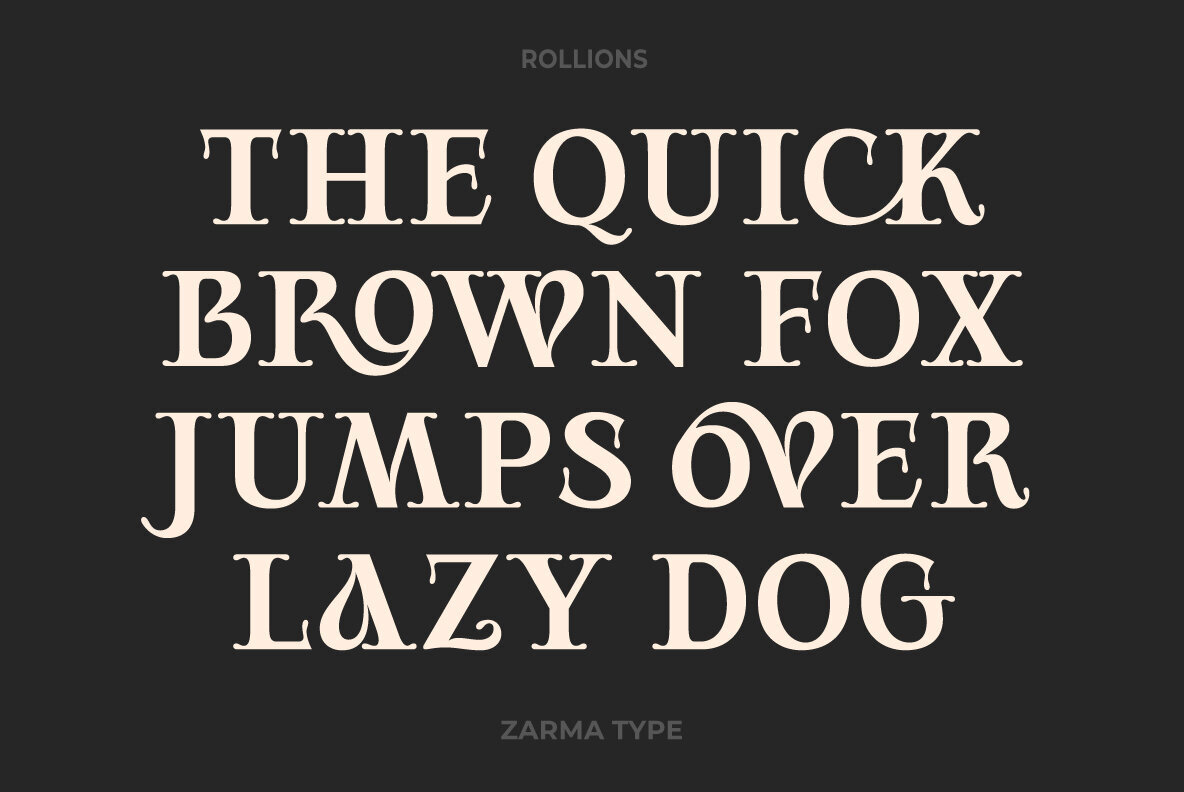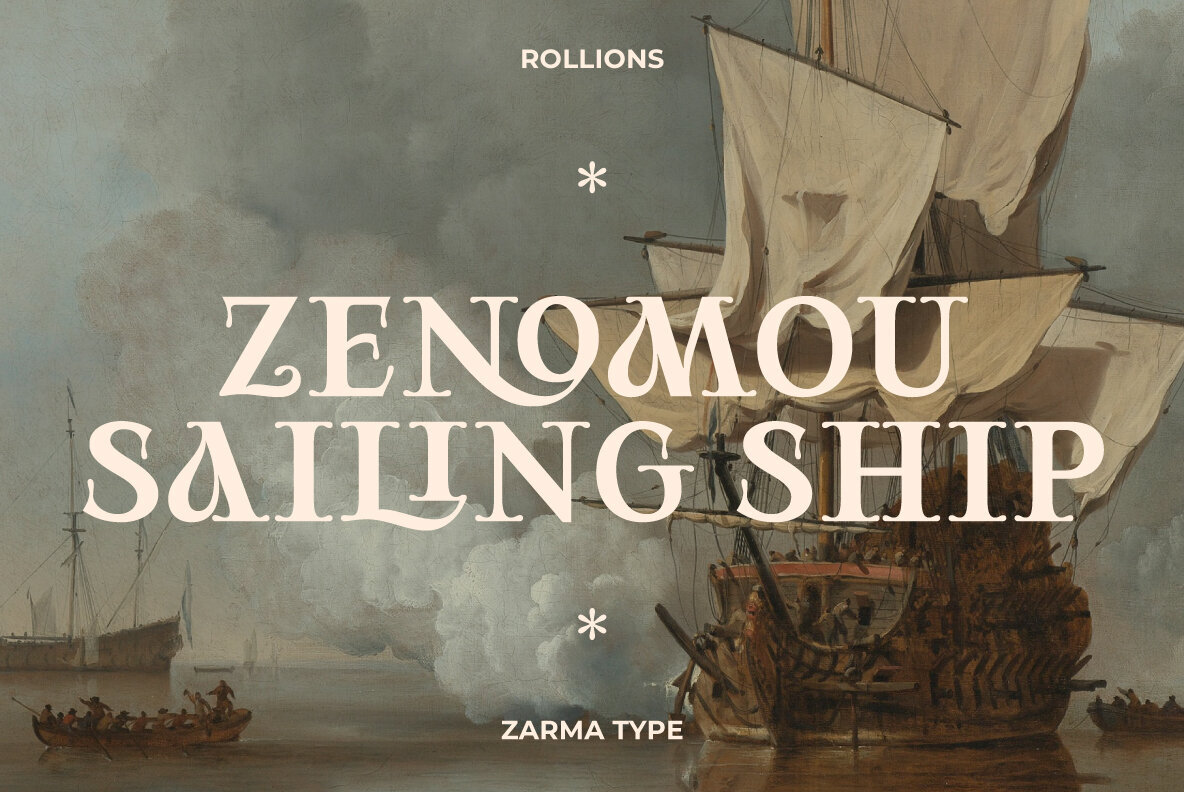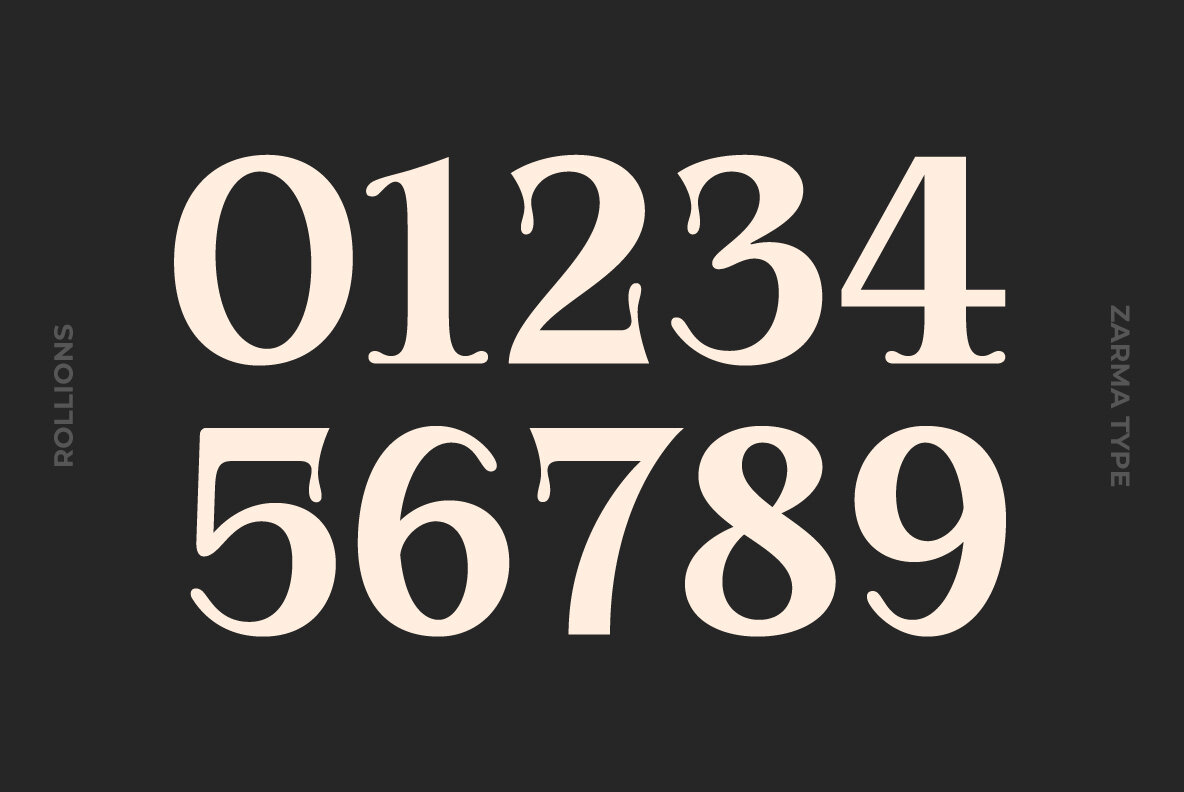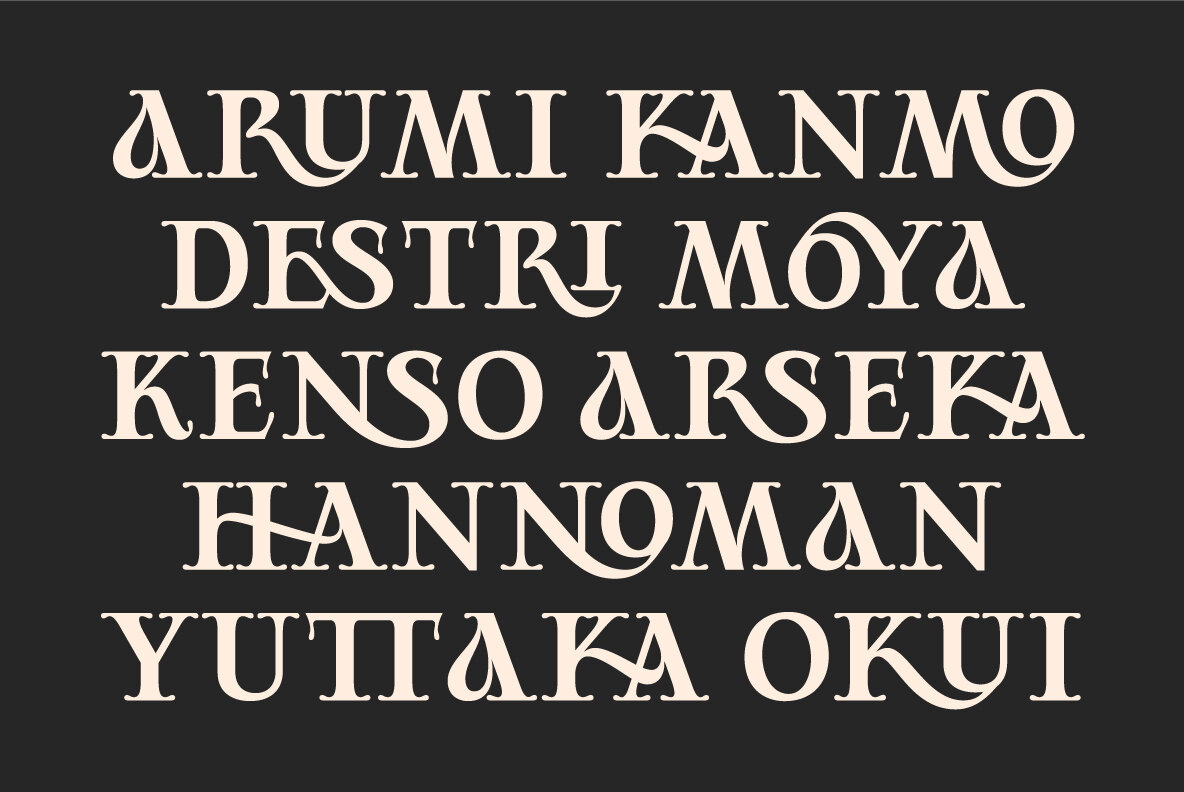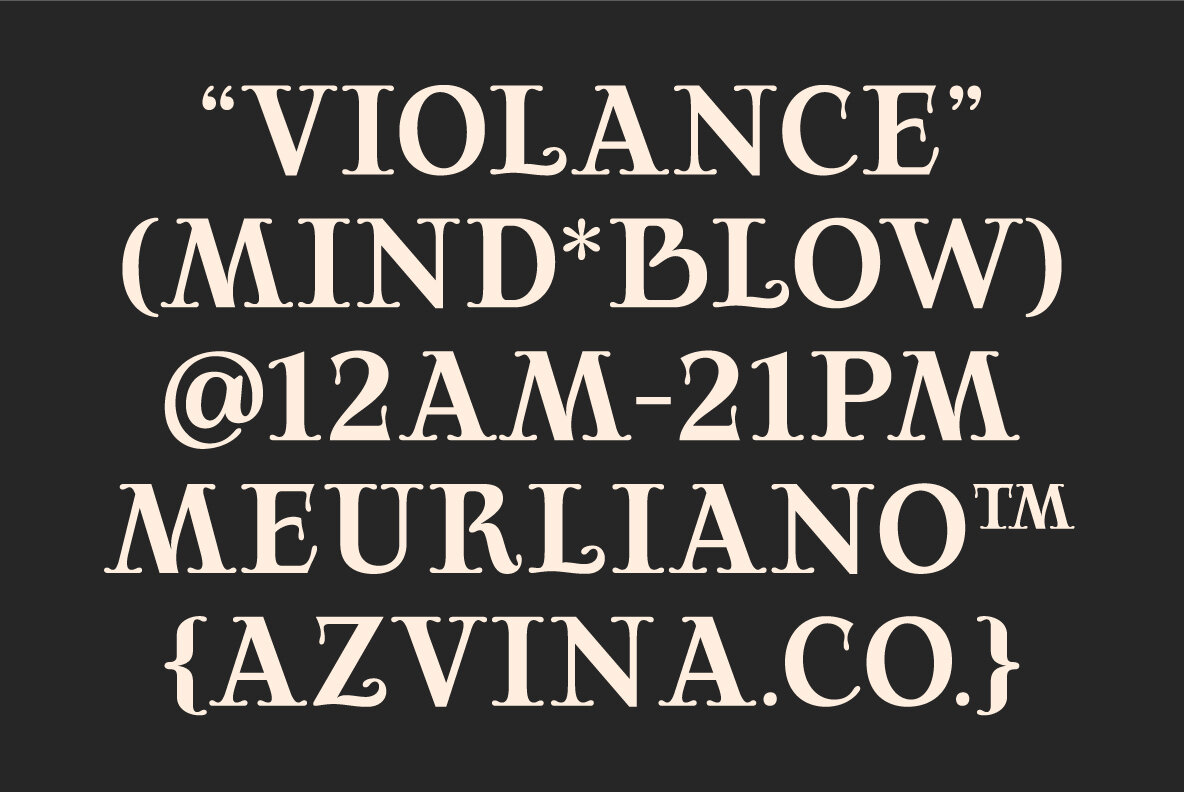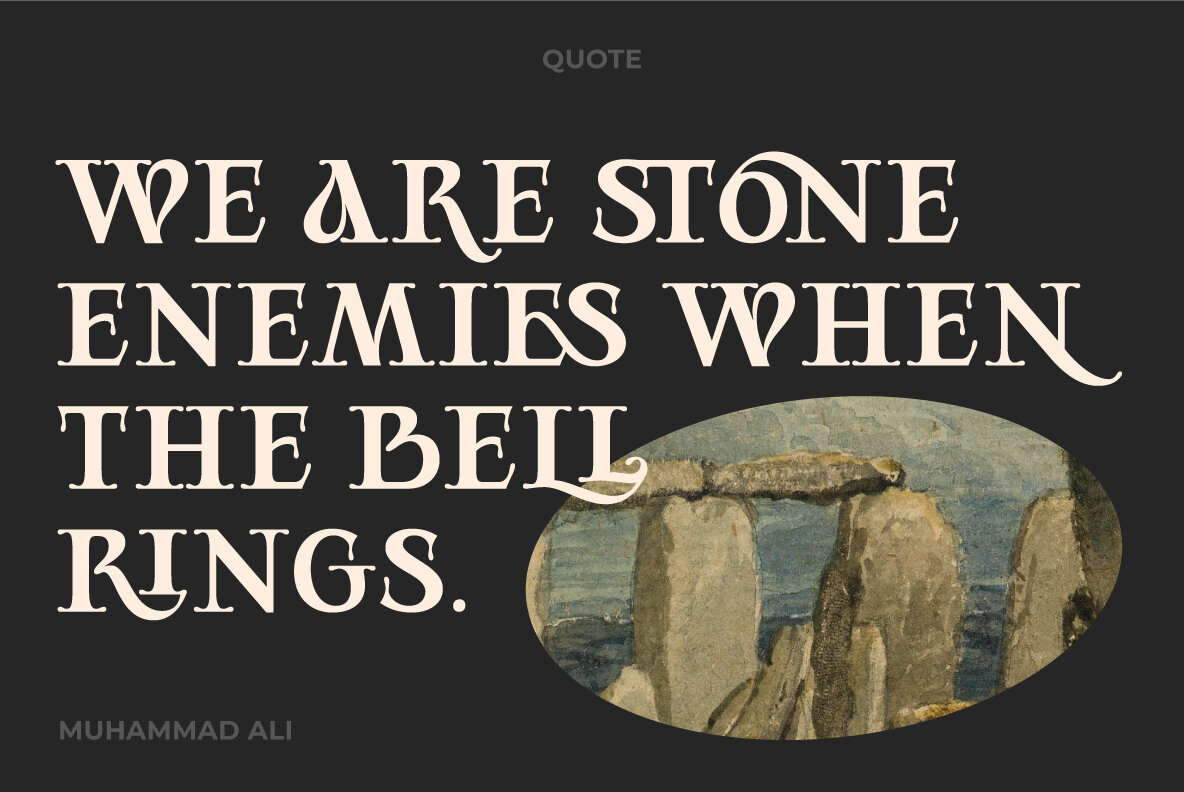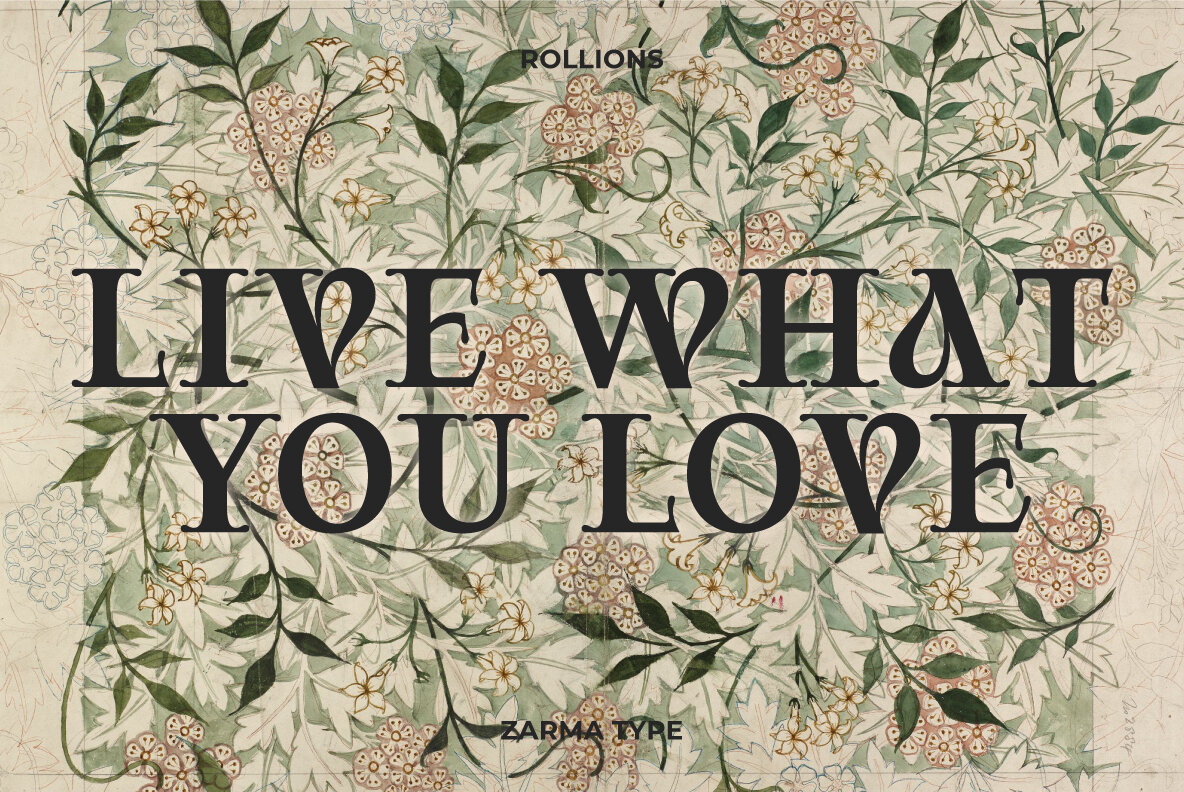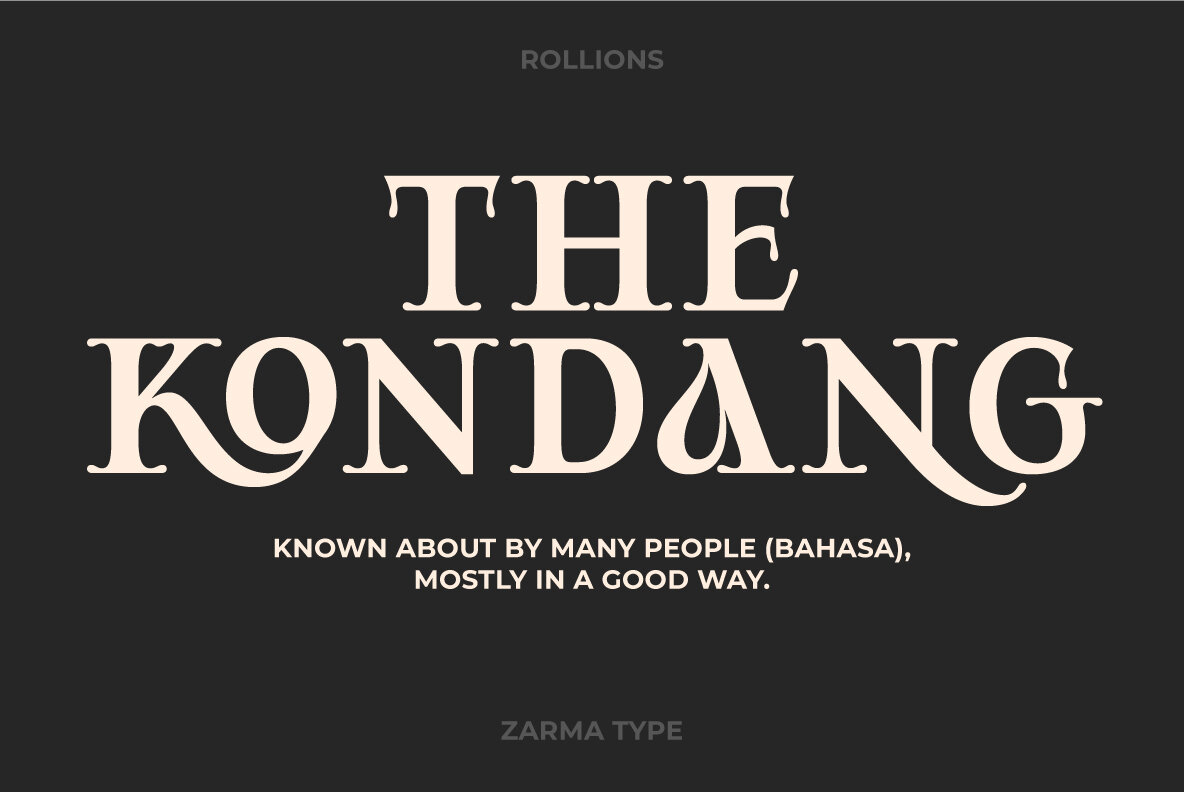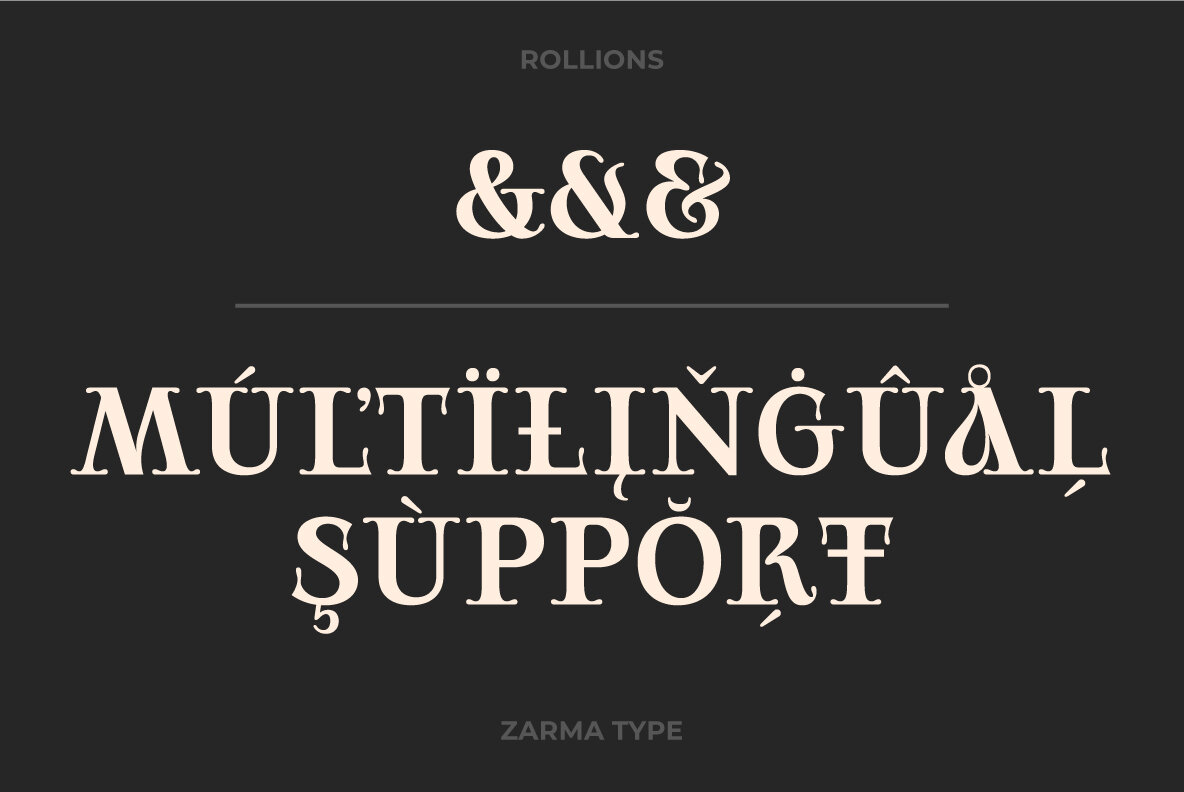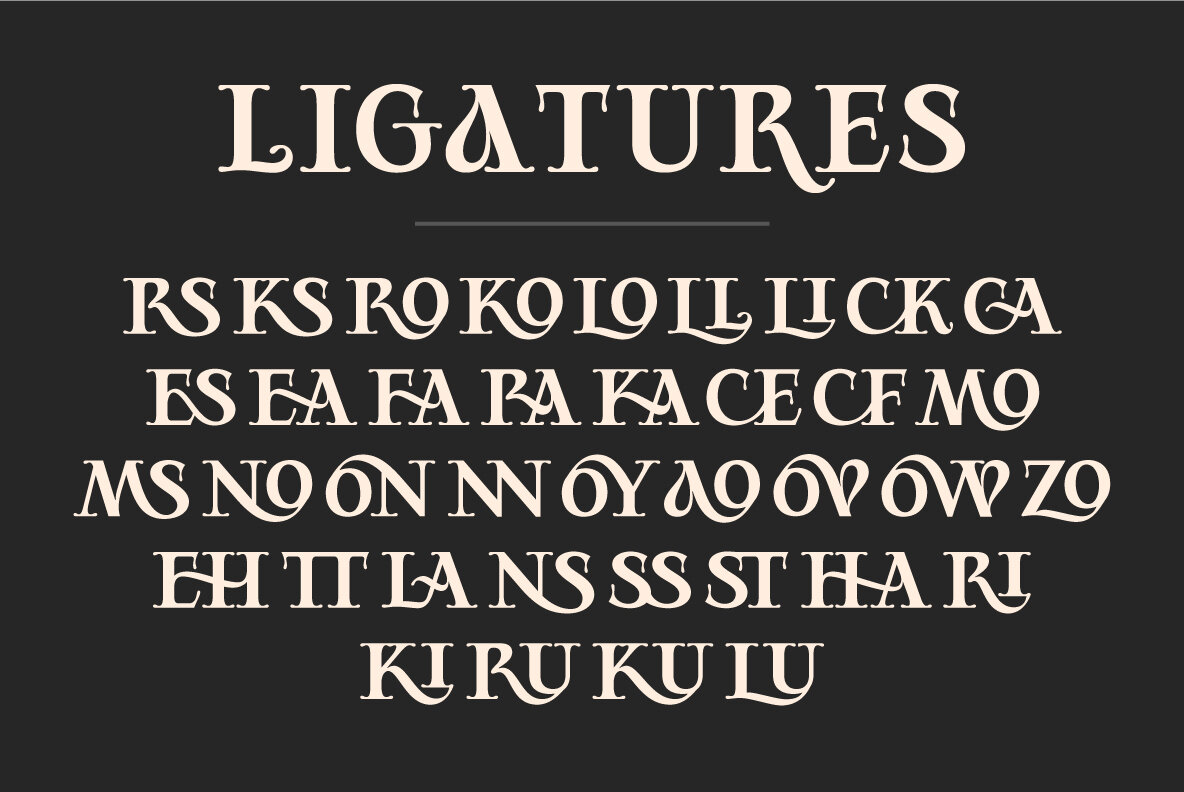
Rollions Font
Rollions
The Rollions typeface is a unique, beautiful and versatile serif with exquisite detail that will make your work stand out. Use this beautiful serif as a memorable logotype or header and pair it with something contrasting and clean.